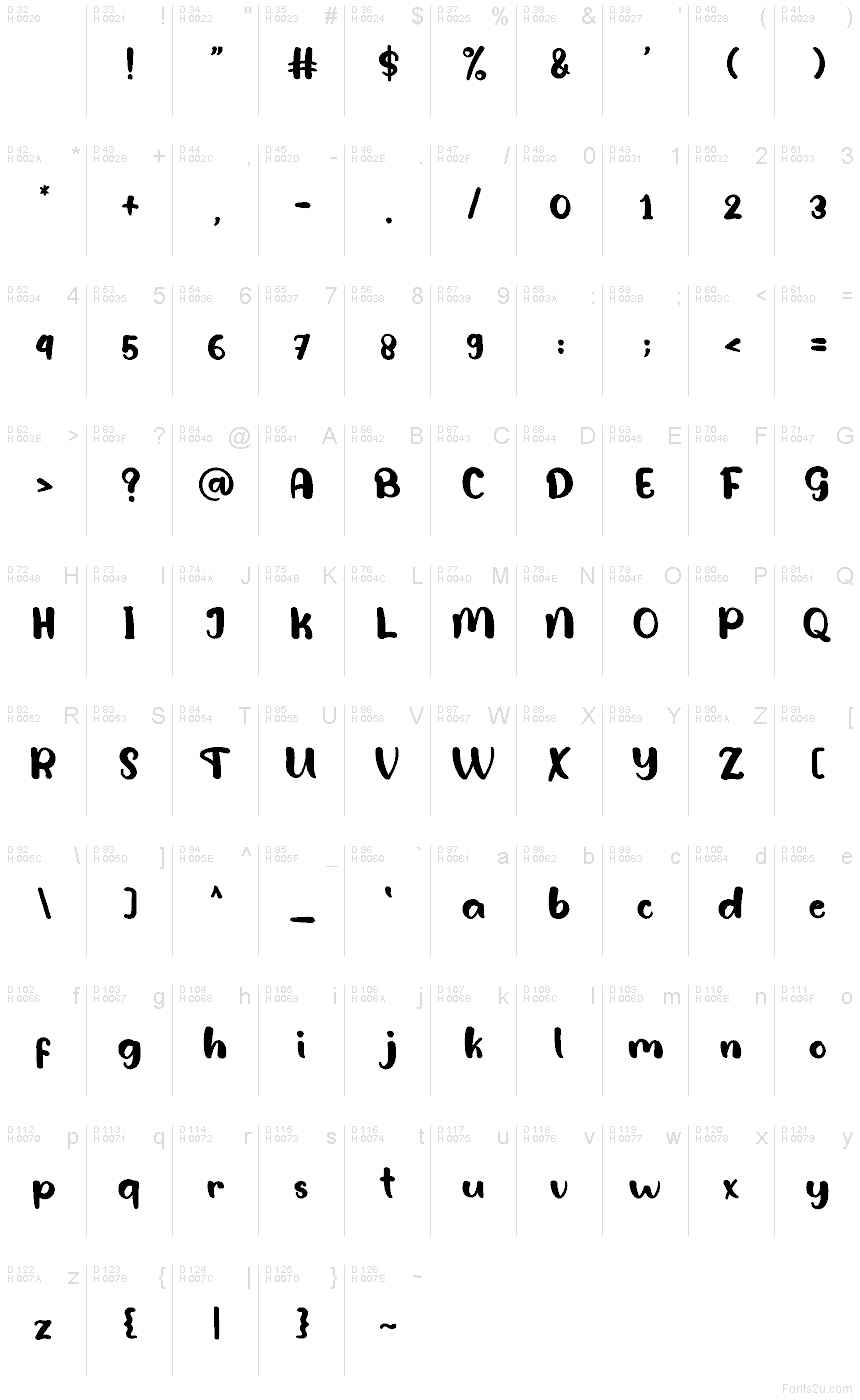
Boho Brush
Boho Brush font by One Design is a free brush typeface that leans into bold, inky strokes with soft, rounded edges. Its letters feel hand‑painted and a little bouncy, with chunky daubs that puddle into friendly, high-impact forms. The texture reads like wet gouache on smooth paper—lush, tactile, and unmistakably human—giving headlines instant warmth without getting messy.
Using Boho Brush, your titles land with cheerful confidence. It shines on boho branding, cafe menus, craft packaging, kids’ posters, festival flyers, and upbeat social graphics. The generous weight keeps short phrases punchy and legible; set it big and let the curves breathe. Pair this free font with a clean geometric sans for body text to keep the message crisp and grounded.